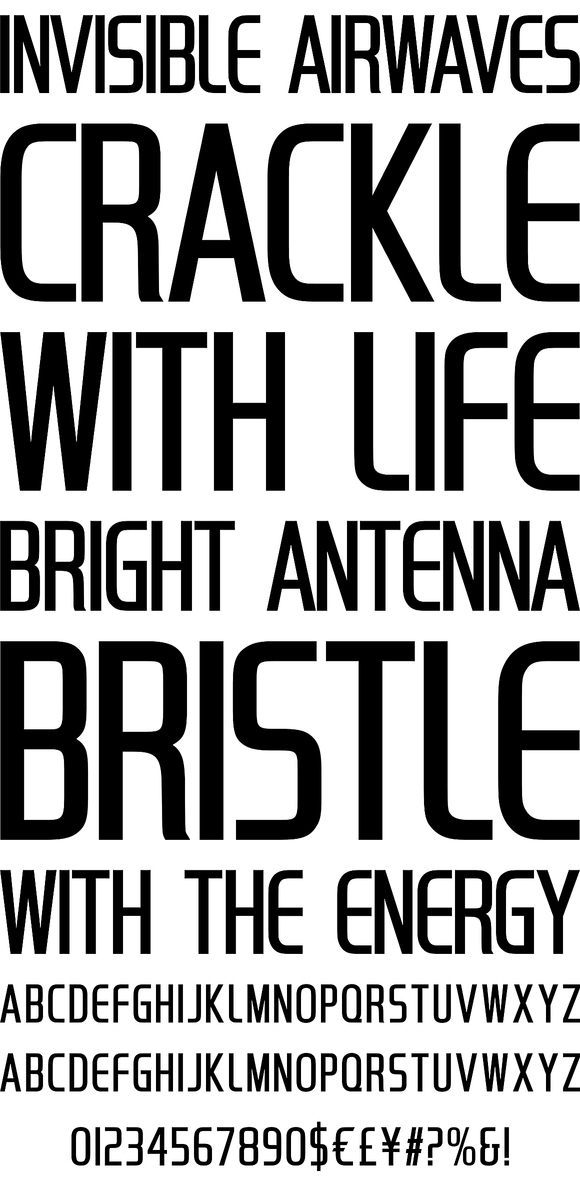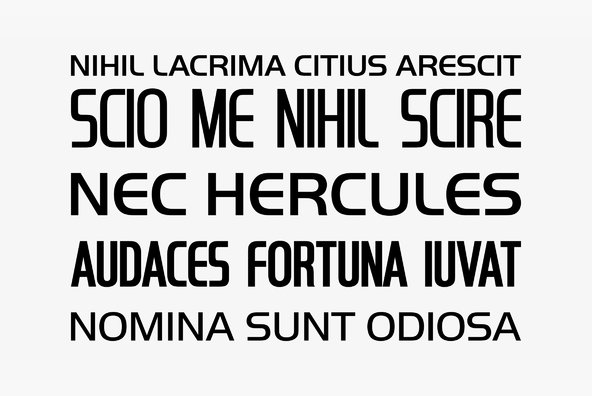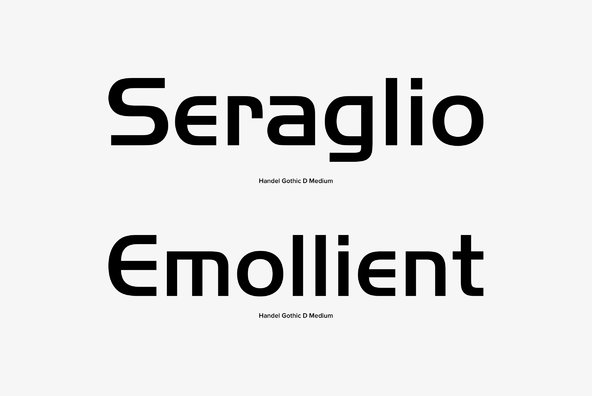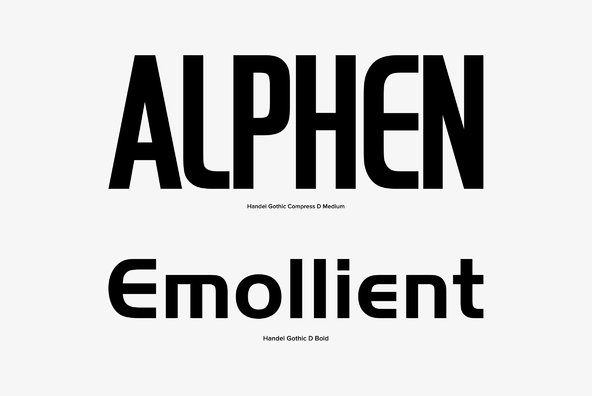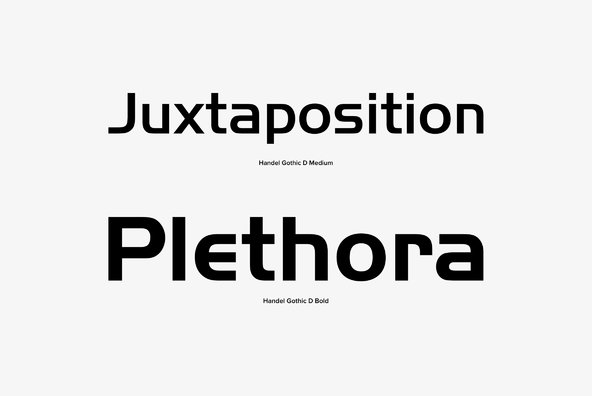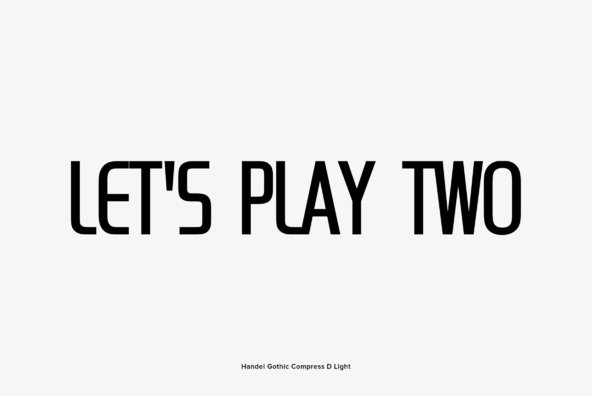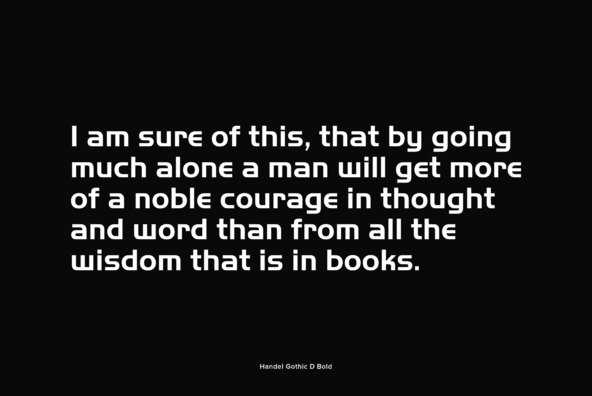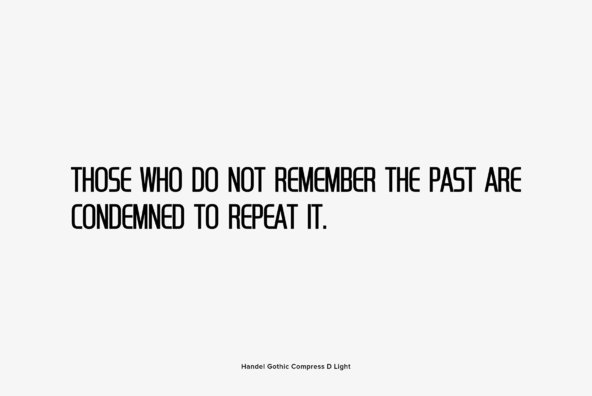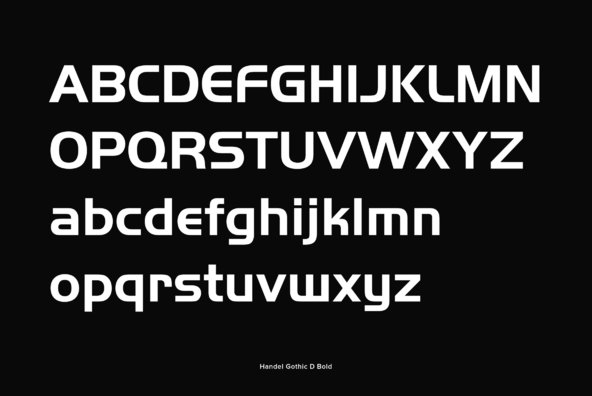
Handel Gothic
Designed by Don Handel in the mid-1960s, and used in the 1973 United Airlines logo developed by Saul Bass, Handel Gothic was an instant success when released to the graphic design community. The fonts were originally distributed in film format by PhotoStar, now brought back to life by URW++.
It was a prominent font in the 1980s due to its futuristic design and even today is used to signify the future.
Popular uses: Halo 3, Disney/Pixar's film Wall-E, Star Trek: Deep Space Nine titles, Star Trek: Voyager titles, Knight Rider (1982 TV series), FOX Sports graphics between 1998 and 2002, PHP logo and Volvo 740 (84-91).